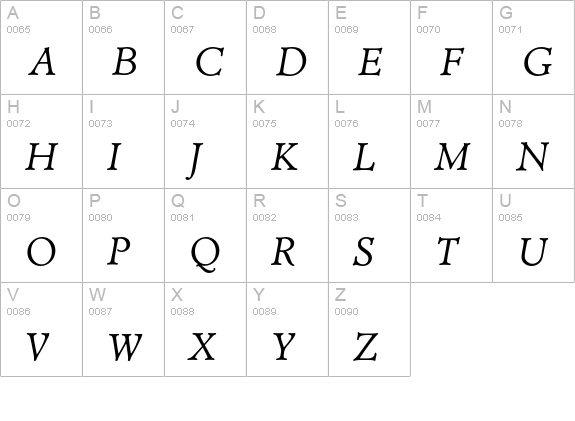
MinisterEF-BookItalic font is a sleek and elegant typeface that exudes sophistication and modernity. Its italic style adds a touch of flair to any design project, making it perfect for use in various applications such as branding, editorial design, and advertising. The font features clean lines and subtle curves that give it a professional and polished look. What sets MinisterEF-BookItalic font apart is that it is available for free download at FontsMarket.com. This means you can easily access this high-quality font without any cost, making it a valuable addition to your font collection. Whether you're a designer looking to elevate your projects or a business owner seeking a refined typographic solution, MinisterEF-BookItalic font is sure to impress with its versatility and style. Don't miss out on this opportunity to enhance your designs with this exceptional font, now freely available for download.